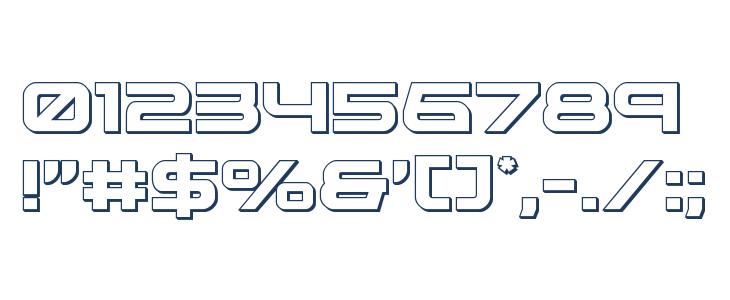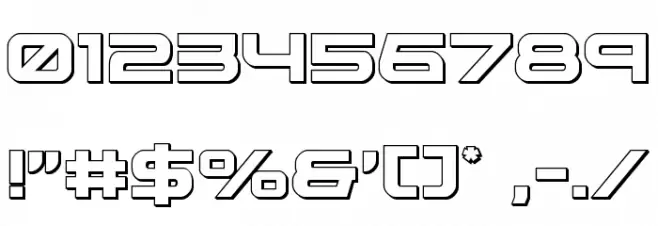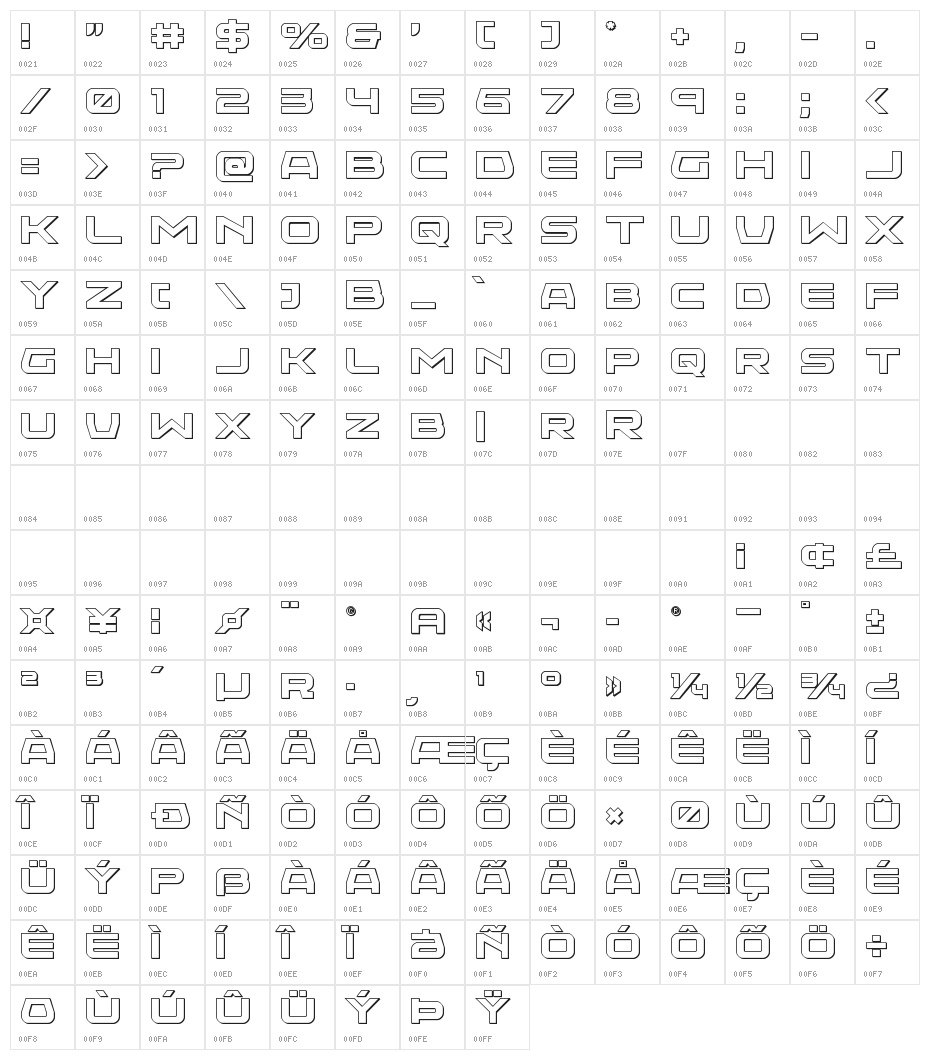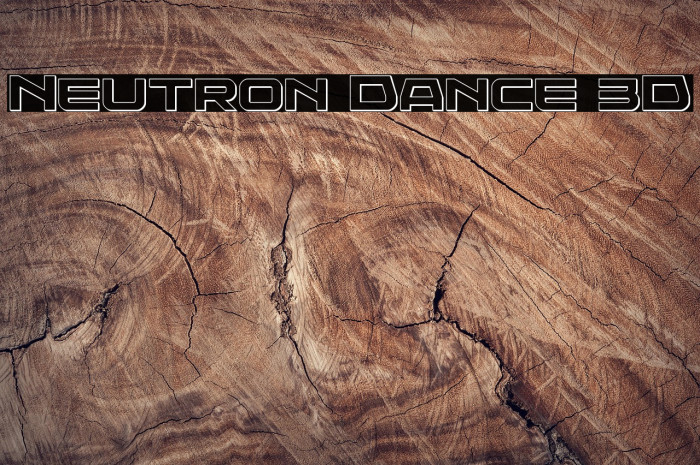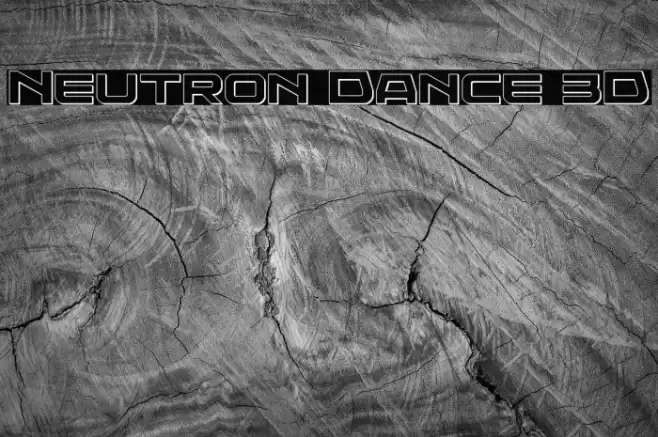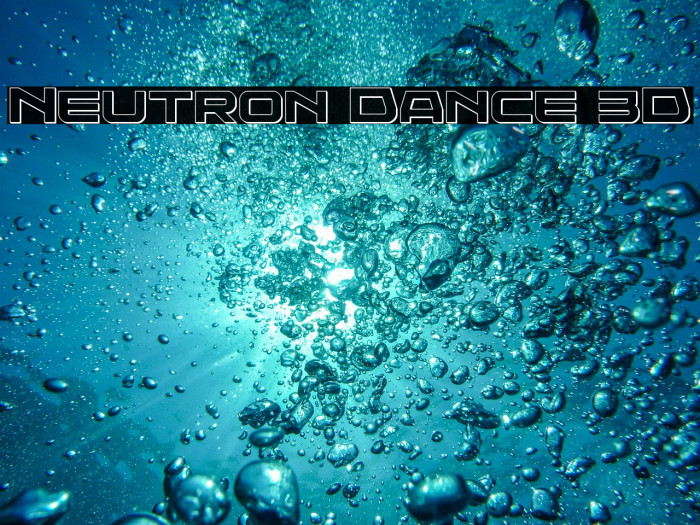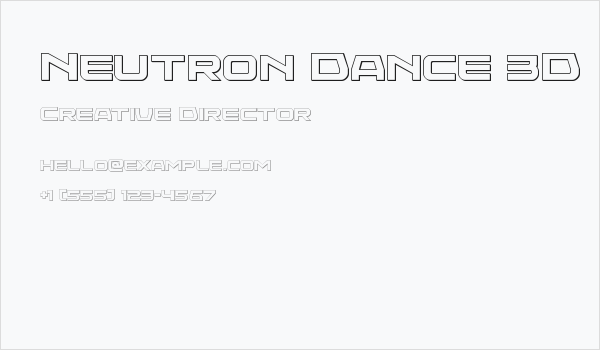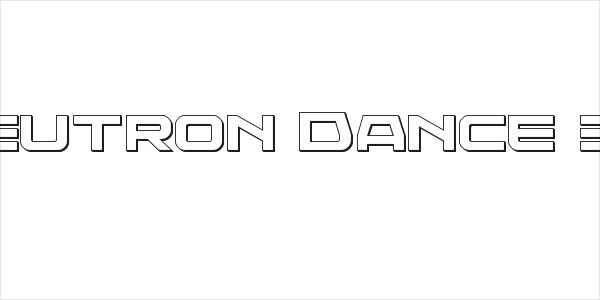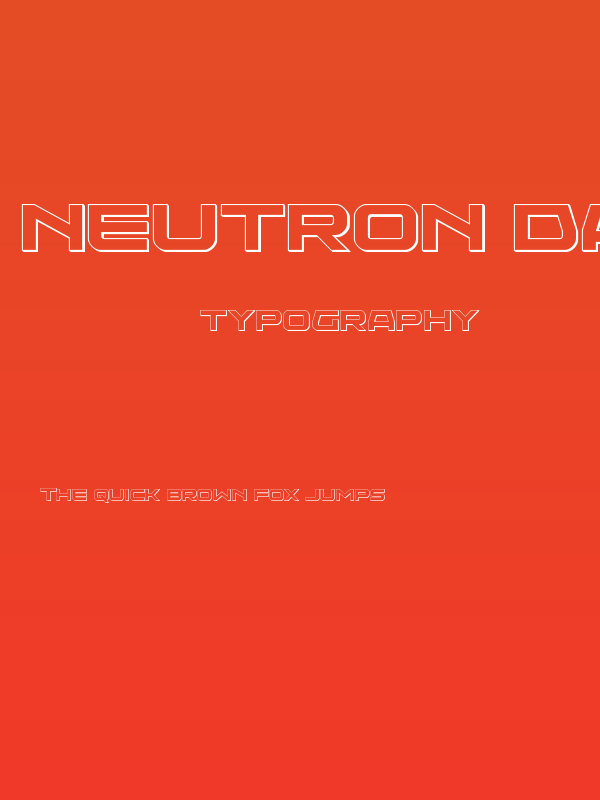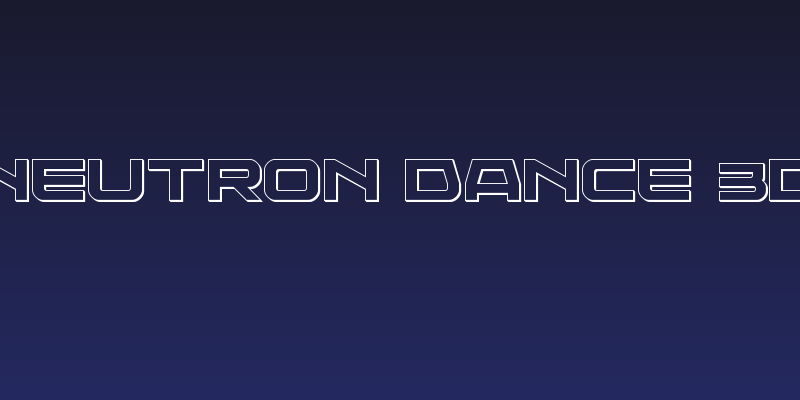
Neutron Dance 3D Font
Neutron Dance 3D Description
This font features a bold, geometric design with a three-dimensional effect, giving it a futuristic and dynamic appearance. The characters are outlined, creating a hollow look that emphasizes their angular and structured form. The uppercase and lowercase letters maintain a consistent style, with sharp edges and clean lines. The numerals and special characters follow the same design principles, ensuring uniformity across all glyphs. This font's unique style makes it stand out, ideal for projects that require a modern and eye-catching typeface.
Proposed ProjectsIdeal for sci-fi themed designs, video game titles, tech logos, and modern posters.